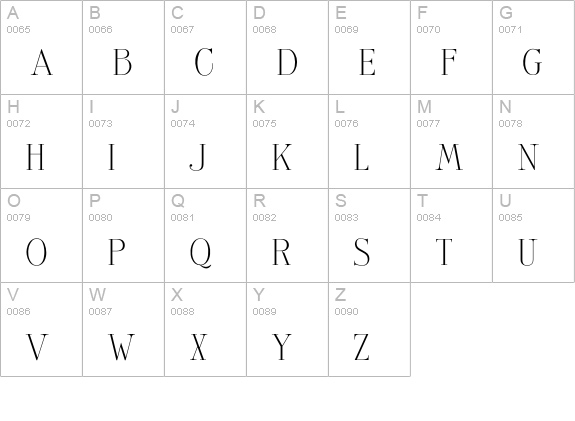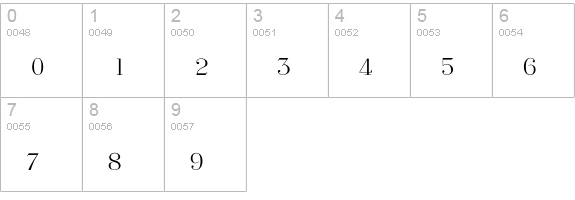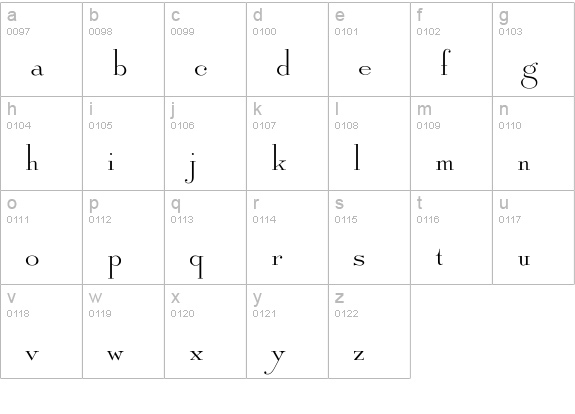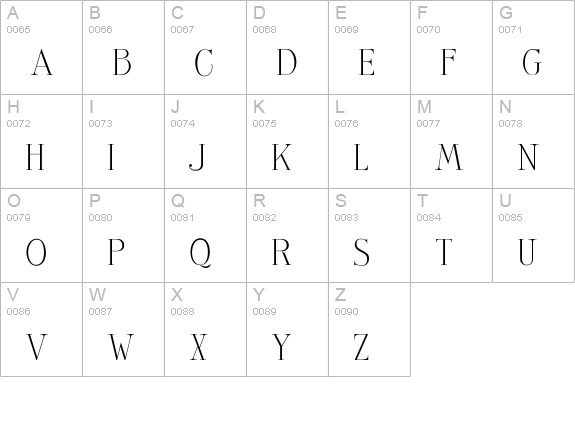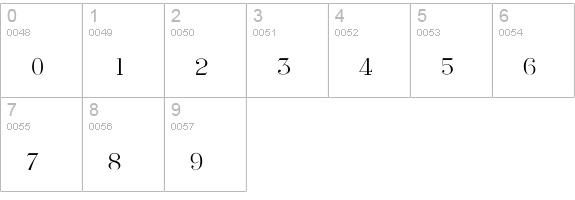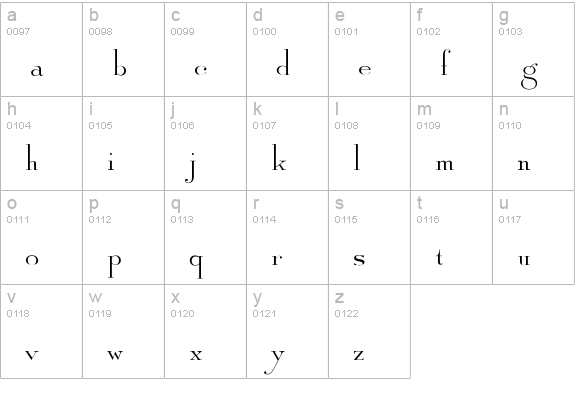
OPTIAmadeus-Solid font is a modern and sleek typeface that exudes elegance and sophistication. With its clean lines and bold design, this font is perfect for creating eye-catching headers, titles, and logos. The sharp edges and solid appearance make it stand out on any project, giving it a contemporary and professional look. The best part about OPTIAmadeus-Solid font is that it is available for free download at FontsMarket.com. This means you can easily access this stylish font and use it in your designs without any cost. Whether you're working on a branding project, website design, or print materials, OPTIAmadeus-Solid font will elevate your work and leave a lasting impression. Don't miss out on the opportunity to enhance your designs with the striking OPTIAmadeus-Solid font. Download it for free today and take your projects to the next level!